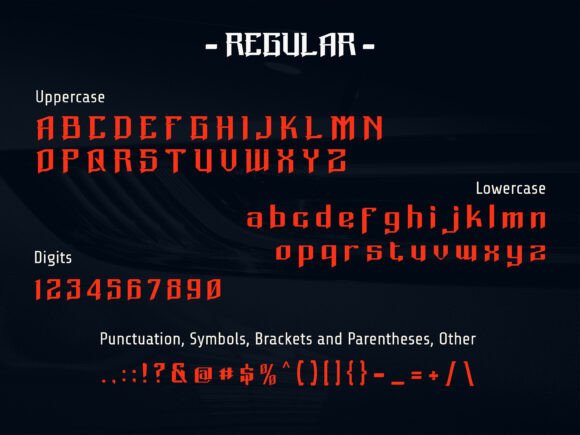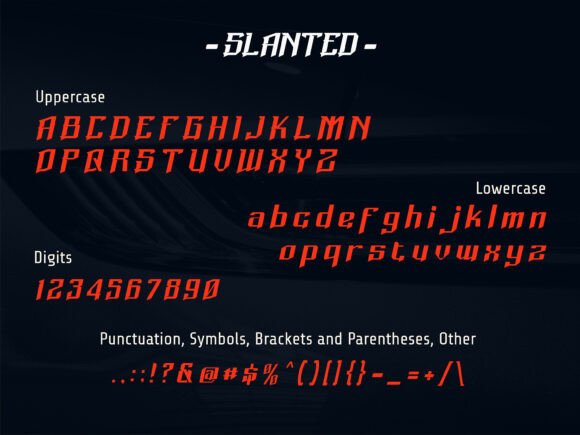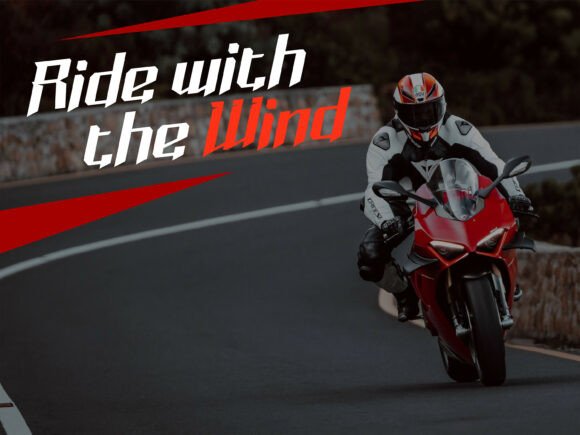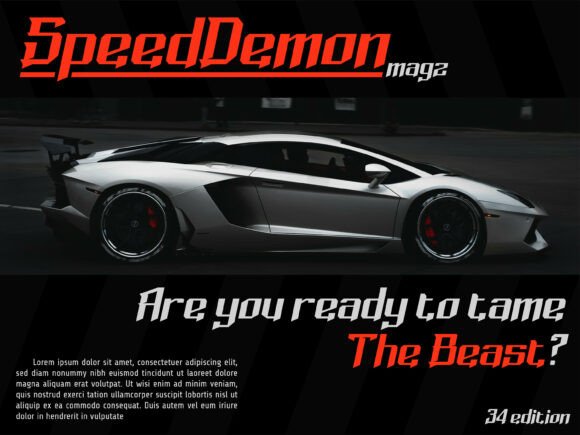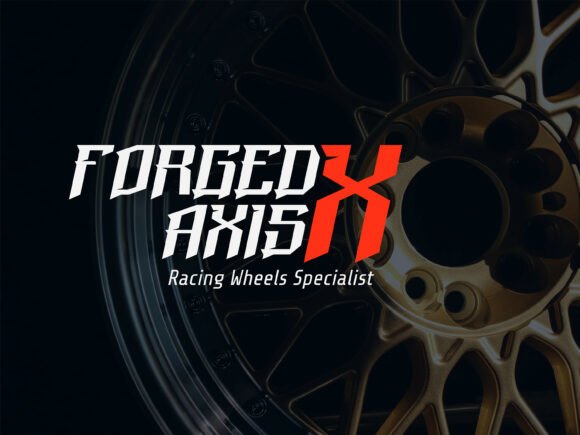
Introduction to Sharpinoz Font Font
Fonts play a crucial role in design, and the Sharpinoz Font font is a typeface that brings both character and versatility to any project. Whether you’re working on a branding project, a website, or a print design, the Sharpinoz Font font offers a unique style that can elevate your work.
Sharpinoz is a bold and aggressive display typeface crafted for high-energy visuals.
Designed with sharp angles, dynamic strokes, and a fast-forward slanted style, Sharpinoz delivers the perfect racing attitude for any project that demands power, movement, and adrenaline Featuring Regular and Slanted styles, Sharpinoz brings versatility for headlines, logos, esports branding, poster titles, motorsport graphics, magazine layouts, apparel, and anything that needs a strong competitive punch.
Key Features of Sharpinoz Font Font
Why Choose Sharpinoz Font Font?
The Sharpinoz Font font is more than just a typeface – it’s a design tool that helps you communicate your message with style and clarity. Its unique character set and versatile design make it suitable for a wide range of applications, from elegant invitations to bold headlines.
With its carefully crafted letterforms and balanced proportions, the Sharpinoz Font font ensures readability and visual appeal across all mediums.
What makes Sharpinoz Font font special?
The Sharpinoz Font font stands out with its unique design, exceptional readability, and versatility across various design applications.